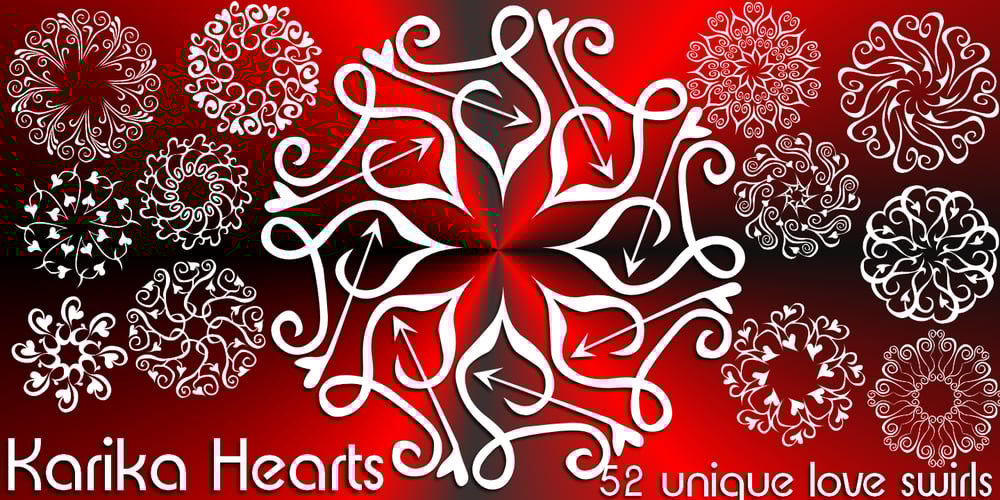
Karika Hearts Font Family was designed by Denise Koehler and published by Deniart Systems. Karika Hearts contains 1 styles and family package options. Say it with all your heart! Karika Hearts is part of the Karika Collection of fonts and was inspired by our love of swirly patterns that say i love you. These 52 hand drawn, heart-inspired swirls are a splendid choice for all your romantic designs such as valentine cards, wedding invitations, love notes, or stationery.